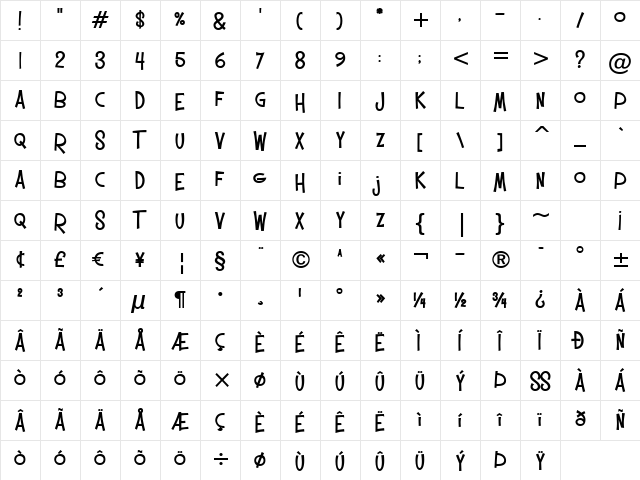
Complete Mister Sirloin BTN Well Regular glyph index. Displaying only characters natively supported by Mister Sirloin BTN Well Regular font.
Mister Sirloin BTN Well is a composed and adaptable typeface that performs quietly and consistently across a wide range of design contexts.